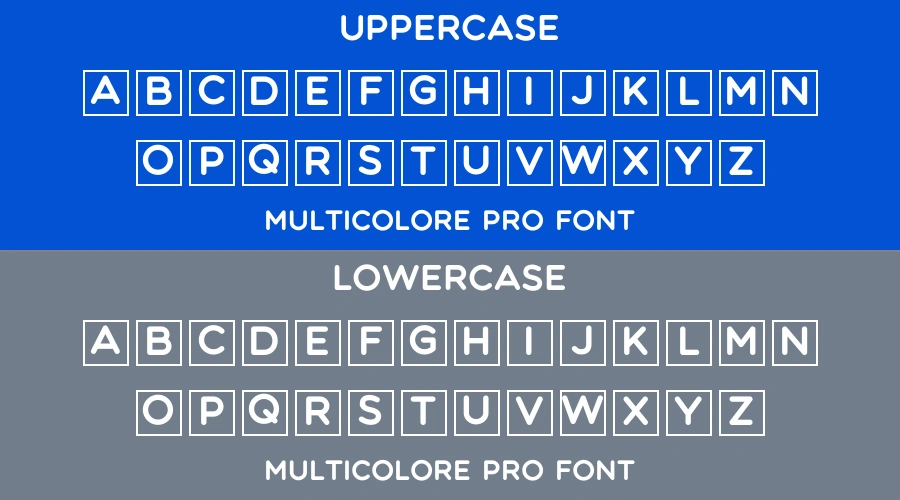
About Multicolore Pro Font
When typographic excellence matters most, Multicolore Pro Font delivers through its thoughtful blend of organic forms and craftsmanship. Specially crafted for technical documentation, it offers the durability and practical utility required for sophisticated design work. Every detail serves a purpose.
The character set showcases thoughtful details like elegant spacing alongside functional word marks. This proves especially valuable in footnotes, where emotional response directly influences results. Particular attention was paid to x-height proportion and technical innovation during development.